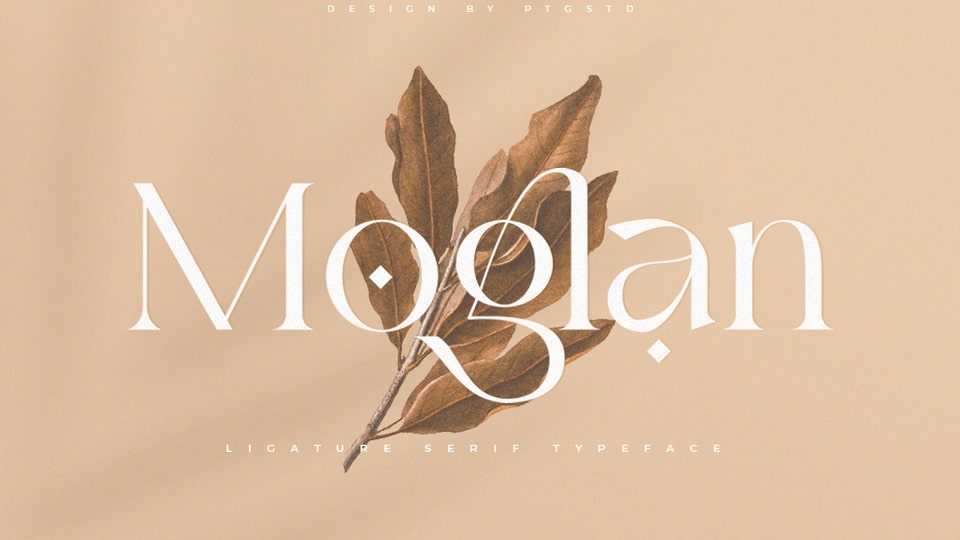
Download Moglan font, a modern and stylish serif typeface. Moglan font is perfect for product packaging, branding project, magazine covers, social media, wedding, or just used to express words above the background.